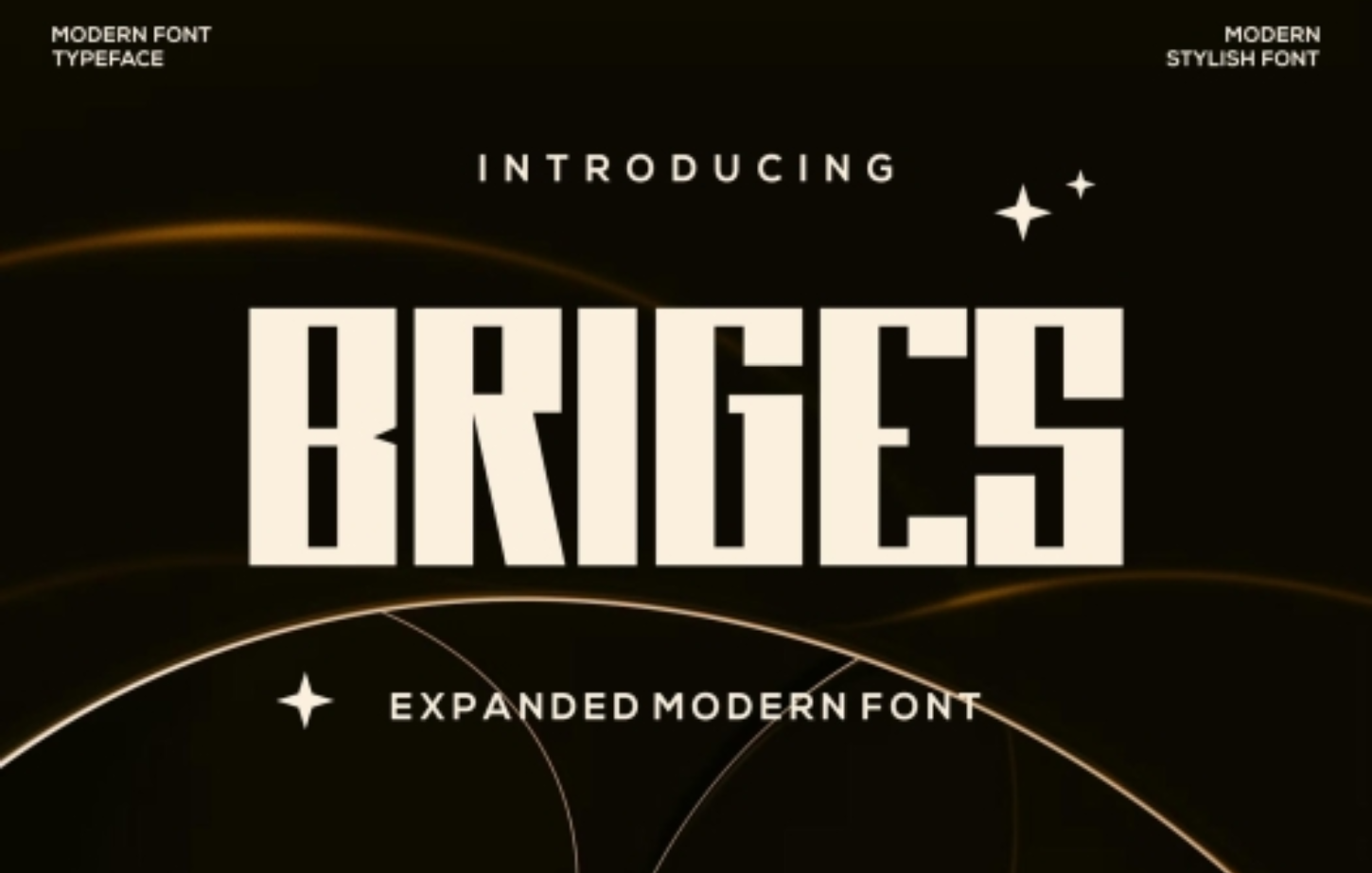
Briges Font
Briges Font – a sleek and contemporary typeface that exudes boldness and authenticity. This modern font is designed to make a statement, perfect for a variety of branding projects such as logos, eSports designs, and beyond. Its versatility allows it to shine in diverse settings, making it a standout choice for any creative endeavor.